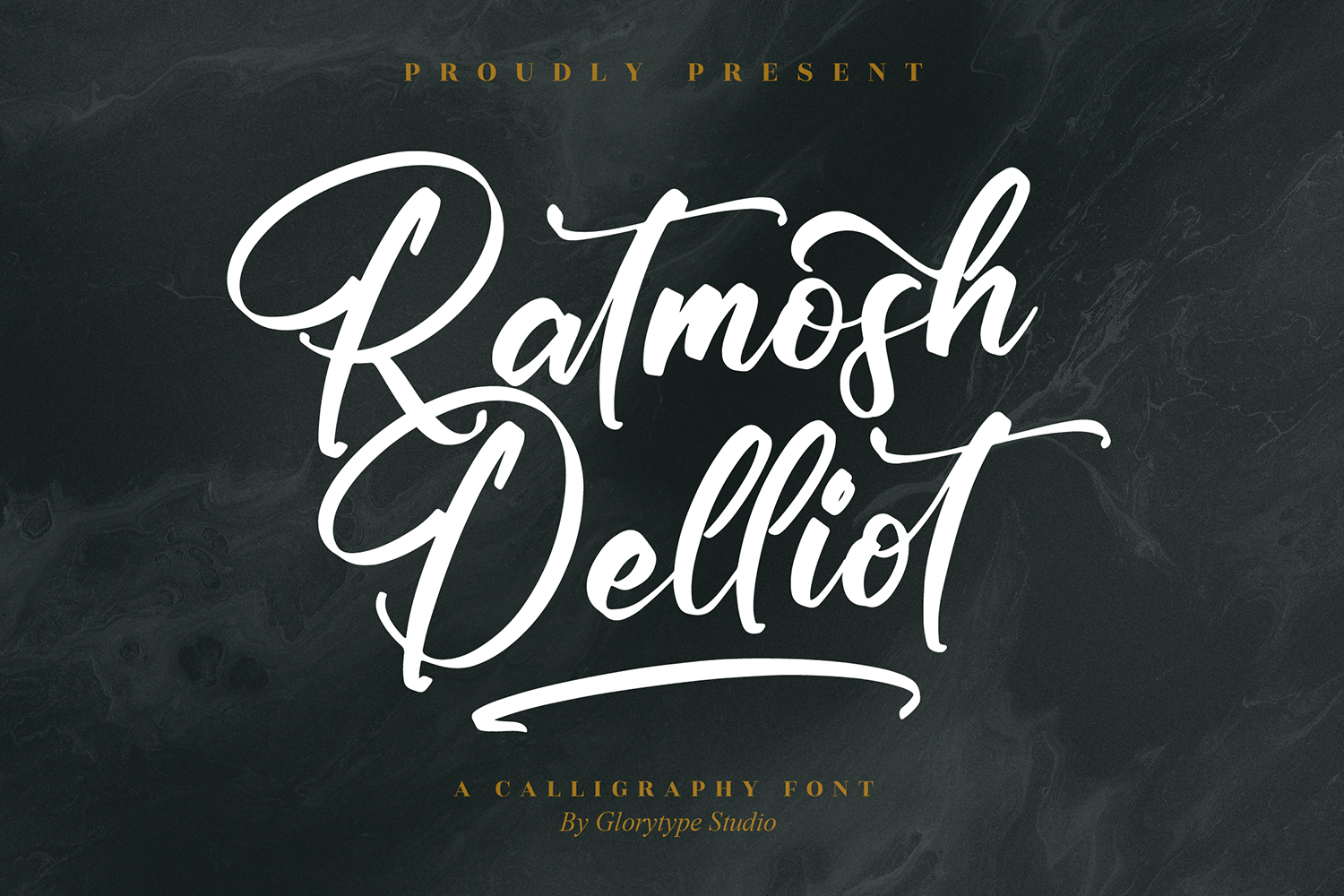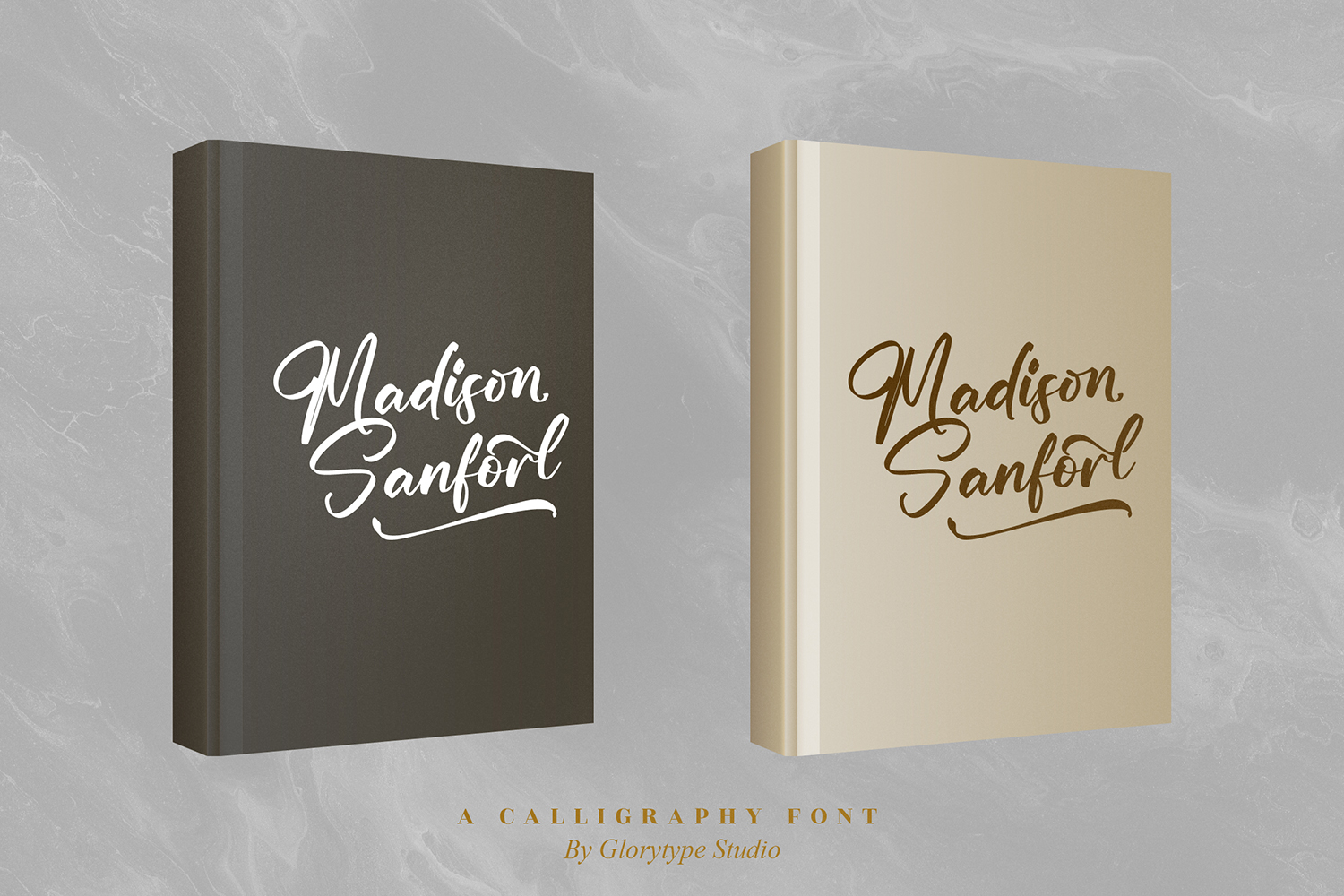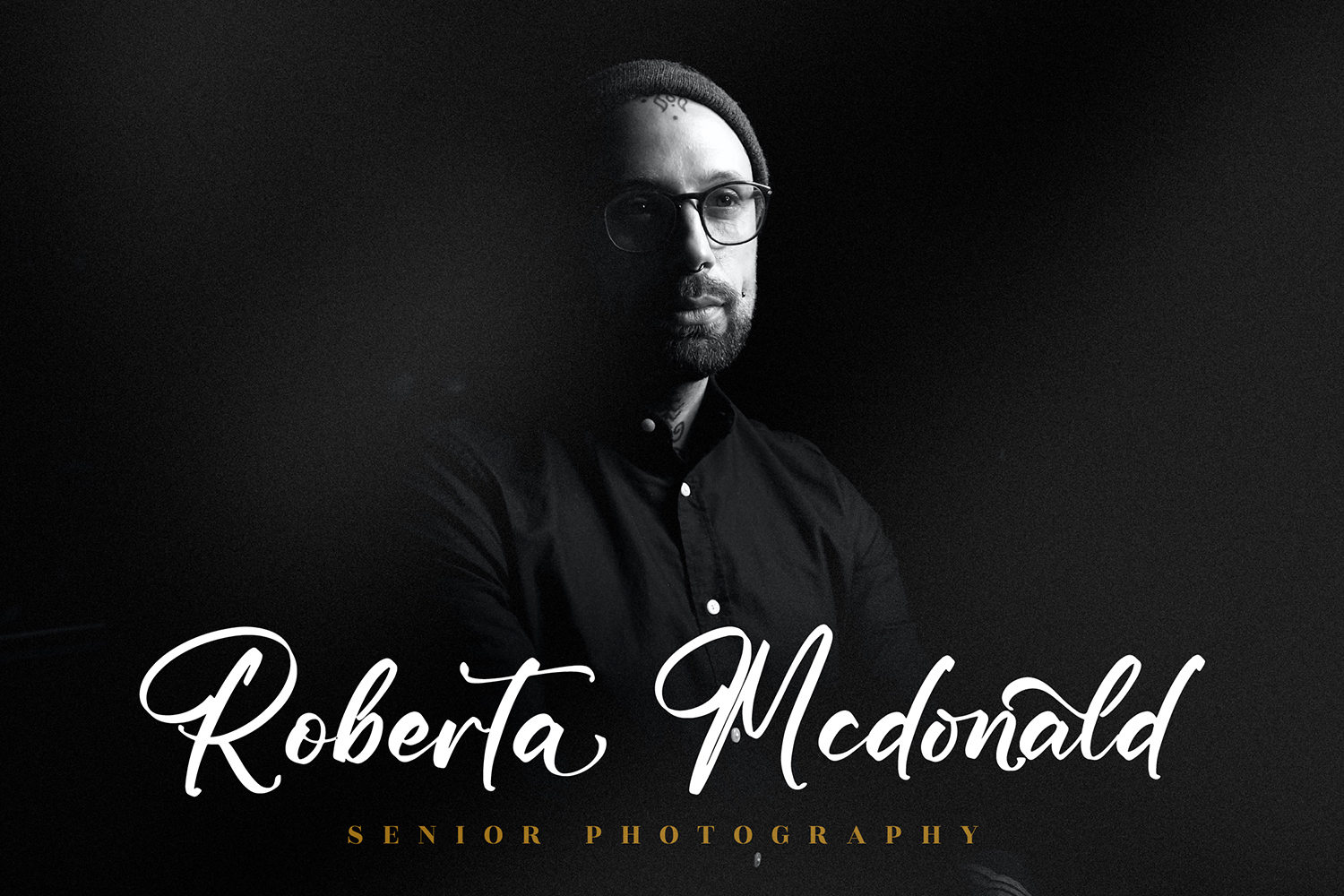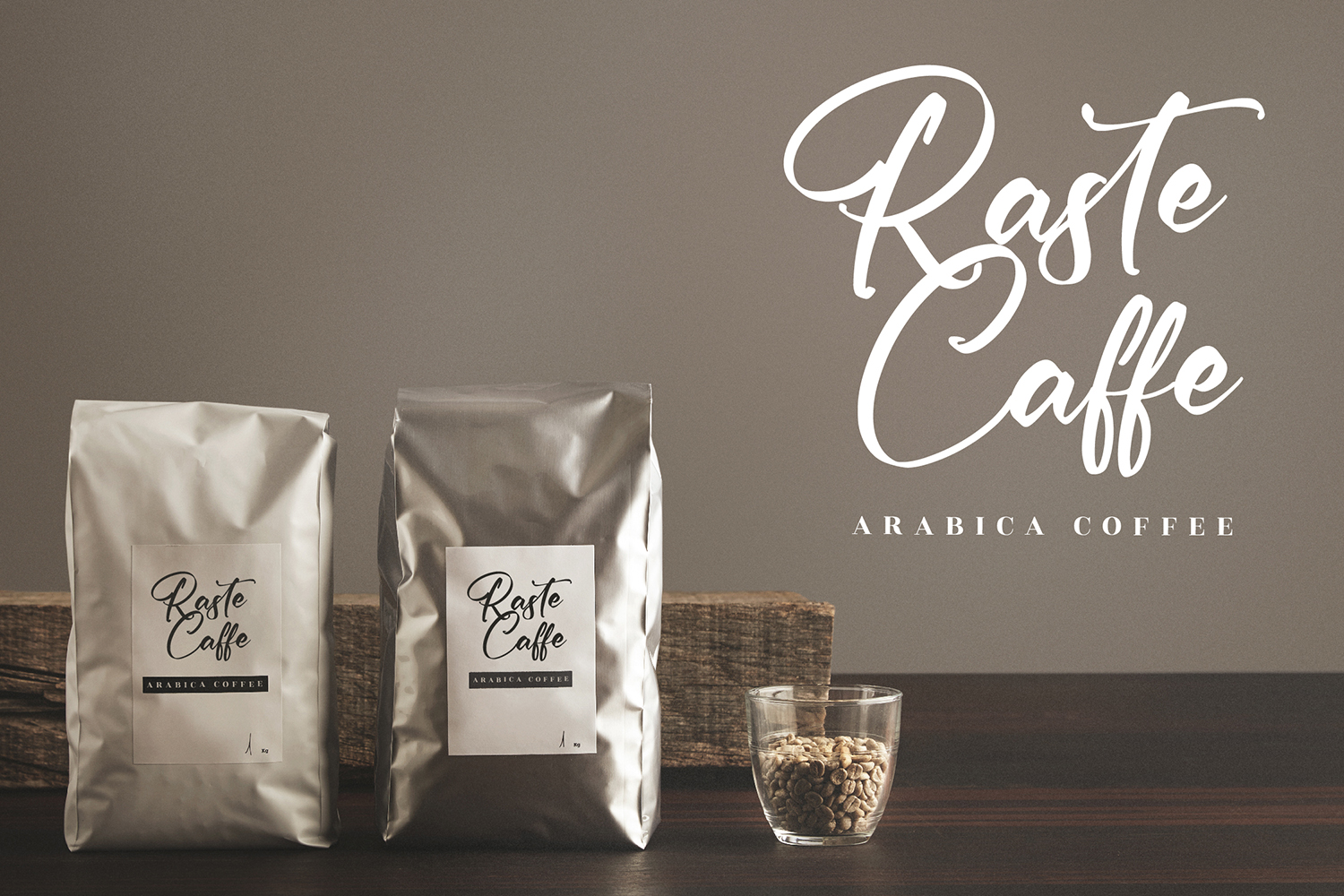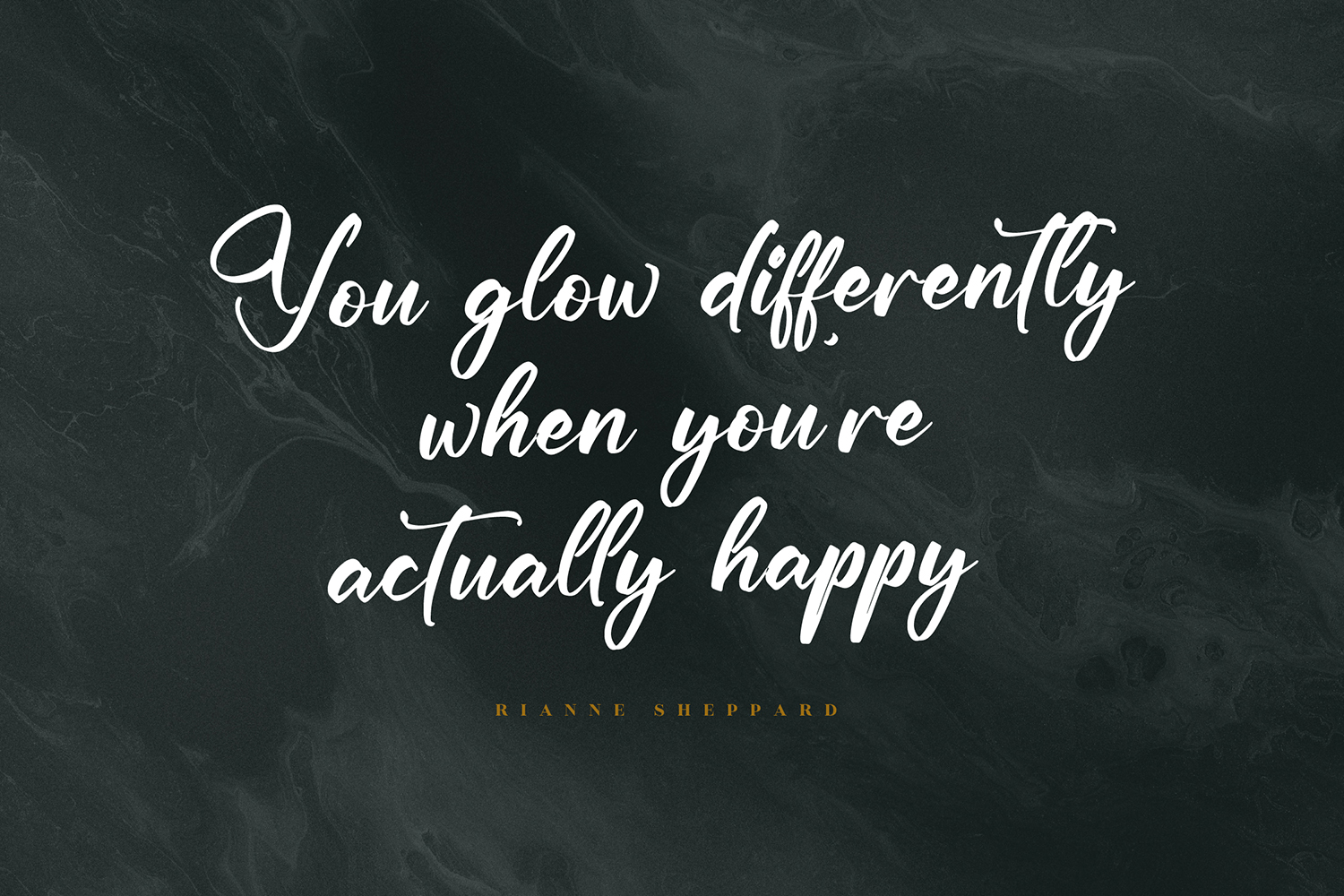
Ratmosh Delliot Free Font
Ratmosh Delliot Free Font is an interesting modern beautiful handwritten font that simulates detailed brush writing and is very suitable for creating various design projects that require a scripted font. These can be posters, wedding invitations, cards, branding, flyer prints, and more. If you wish to access more features and use them for commercial work please buy the full version.